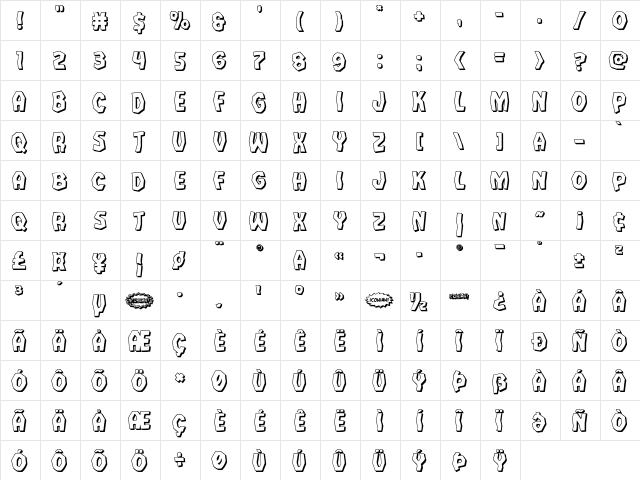
Vampire Bride Shadow Regular
Design Context for Vampire Bride Shadow Typeface
Vampire Bride Shadow is built around its visual character rather than neutral utility — its distinctive forms are designed to make an impression at display sizes.
Font Pairing: Pair with a clean neutral sans-serif for body copy to let Vampire Bride Shadow's character lead without overwhelming the composition.
Pro Tip: Treat Vampire Bride Shadow as the centrepiece of your typographic hierarchy. One strong heading set in a decorative face can carry an entire layout.